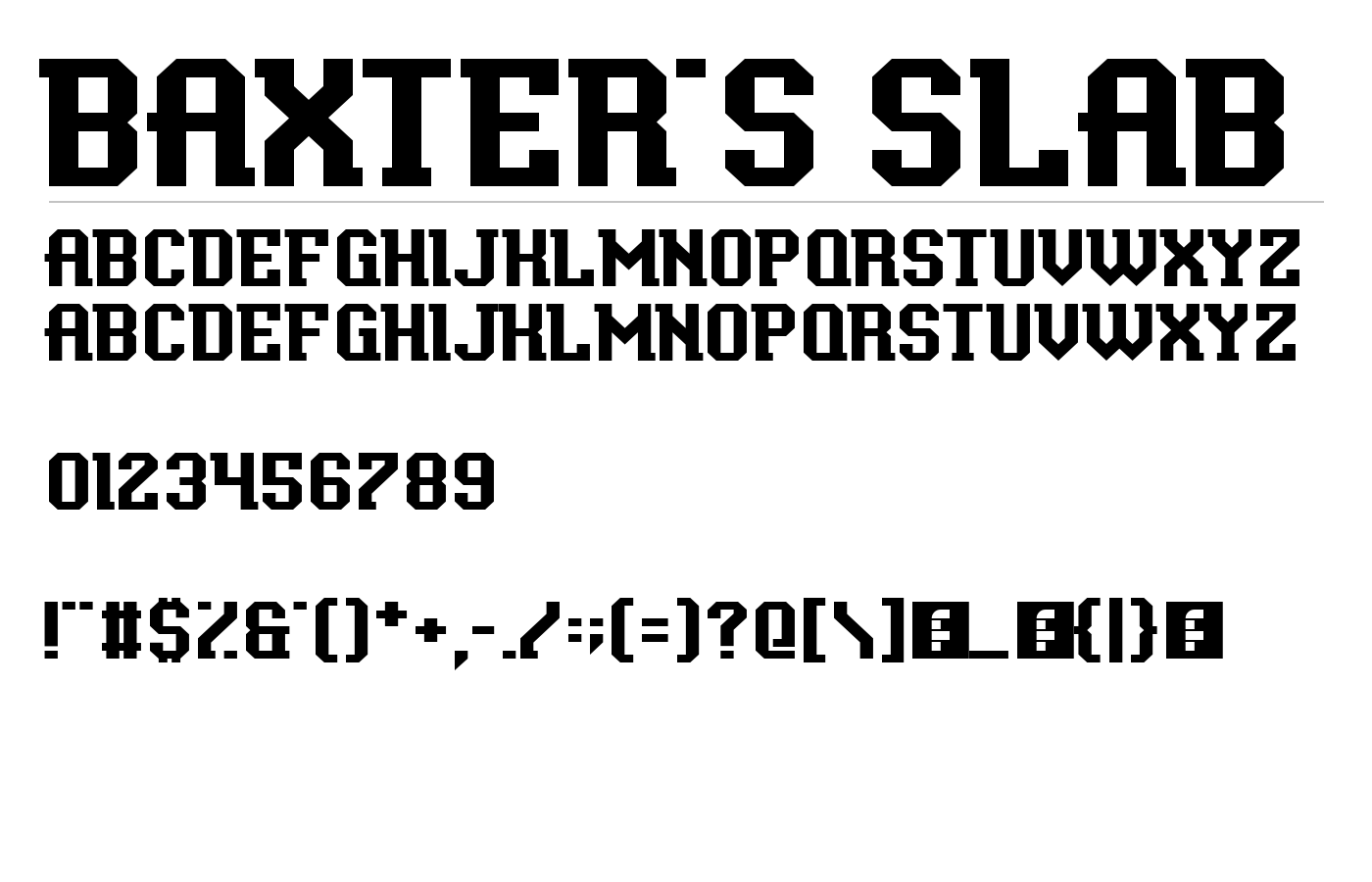
Baxter's Slab is a bold, condensed slab serif font with strong geometric shapes and heavy, block-like serifs that create a powerful and confident look. Its high stroke contrast, sharp angles, and uppercase-only style make it perfect for eye-catching headlines, logos, and branding projects that want to convey strength and a vintage industrial feel. This font works well where bold impact and readability at a distance are needed, such as posters or packaging.
Baxter's Slab Font
About Baxter's Slab Font
| Font family | Baxter's Slab Font |
| Category | Slab-serif |
| Designer | Andrew McCluskey |